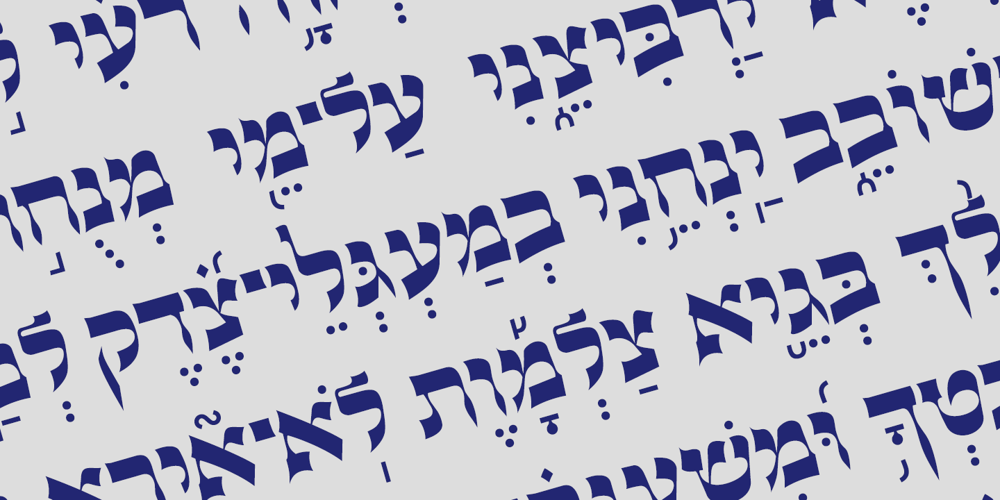
Hebrew Europa
Hebrew Europa font
Hebrew Europa Font Family was designed by Sami Artur Mandelbaum and published by Samtype. Hebrew Europa contains 2 styles and family package options. Beautiful font, good for posters, books, and folders.This is a complete font with all diacritic marks (Nikud and Taamim) and also Shevana, Kamatz Katan, Dagesh Chazak and Holam chaser.